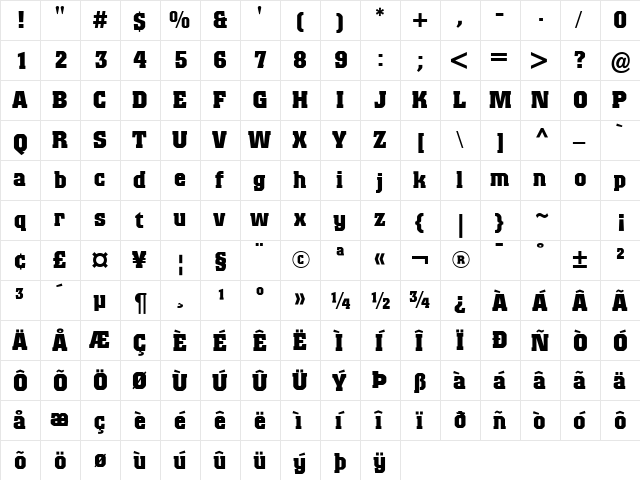
Titanic Normal
Design Context for Titanic Typeface
Titanic offers clean, dependable letterforms without strong stylistic allegiance, making it a practical choice for designers who need flexibility.